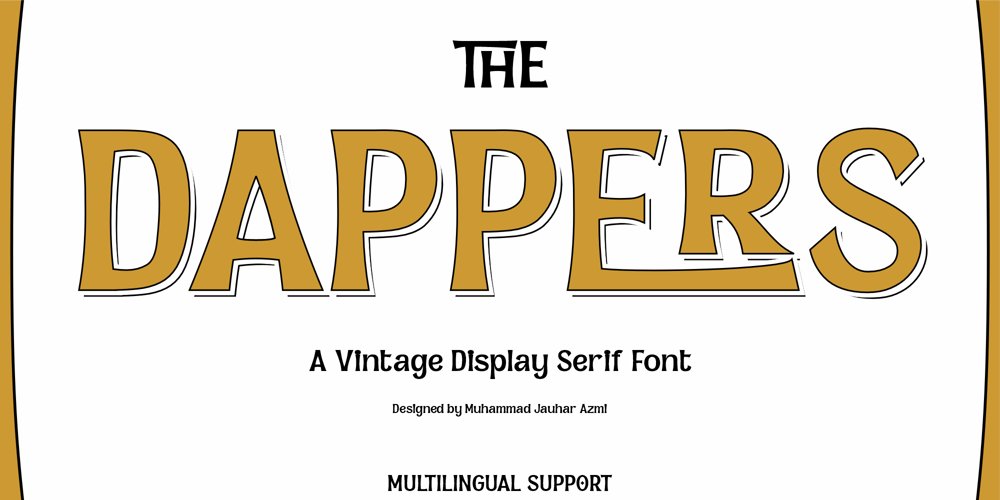
Dappers Liga Font Family was designed by Muhammad Jauhar Azmi and published by Brainware Graphic. Dappers Liga contains 1 styles and family package options. Dappers Liga is a vintage display font inspired from vintage signage typography at the heritage buildings and vintage lettering. it has a old fashioned in its looks. Dappers Liga has a opentype feature, one of it is ligature. ligature makes this font has more old nuance in the design. this font is harmonious aplicable with vintage design concept.